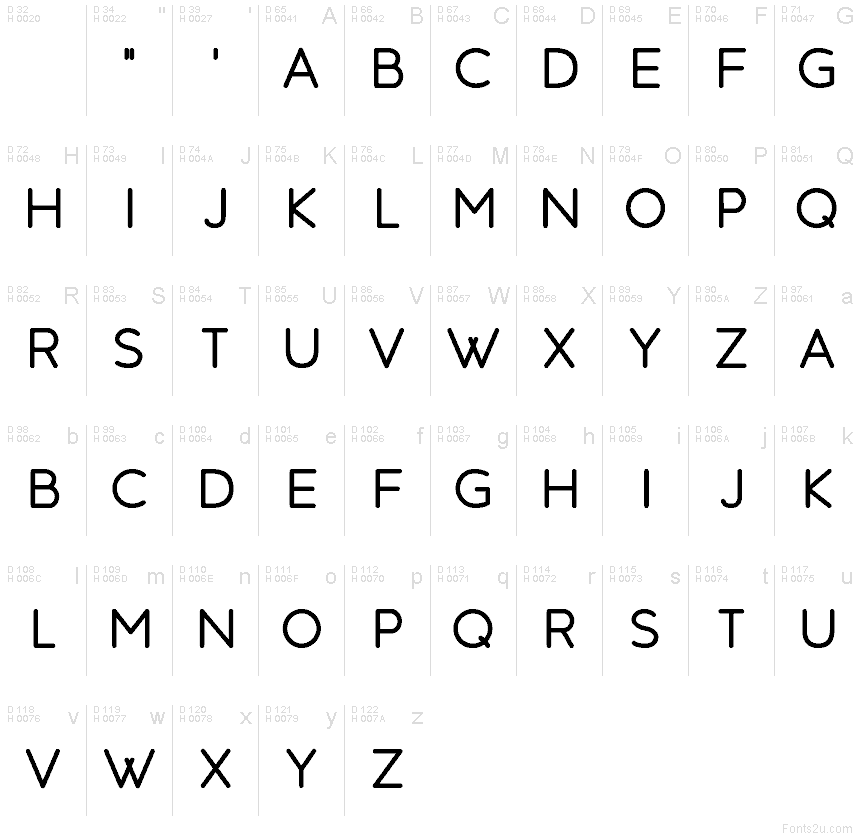
Social Media Bold
Social Media Bold font by Vladimir Nikolic is a free sans serif typeface that speaks the language of online brands. Its tall, slender letters, tight rhythm, and clean monoline strokes feel like they were drawn with a precise digital pen—crisp enough for tiny avatars, but stylish enough for big, scroll-stopping headers. The geometric feel gives it a modern, tech-aware voice without losing warmth.
Using Social Media Bold, your content labels, profile headers, story covers, and app UI screens instantly feel coordinated and on-brand. This free font also works beautifully for YouTube thumbnails, creator logos, minimalist posters, and promo banners where quick readability matters. For a simple system, pair Social Media Bold for titles with a neutral grotesque or system sans for body text, and keep it slightly tracked out at larger sizes for extra clarity.